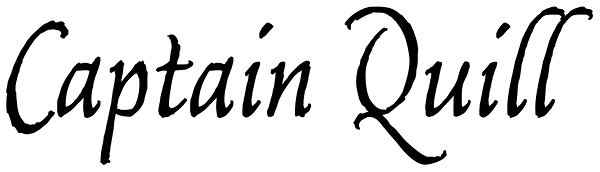
Captain Quill
Captain Quill is a lively calligraphic style script font designed by Jim Ford, based on the handwriting of a fictional pirate figure named Paul Pierce, aka Captain Quill. The Captain Quill font is an exciting font that's loaded with adventure...